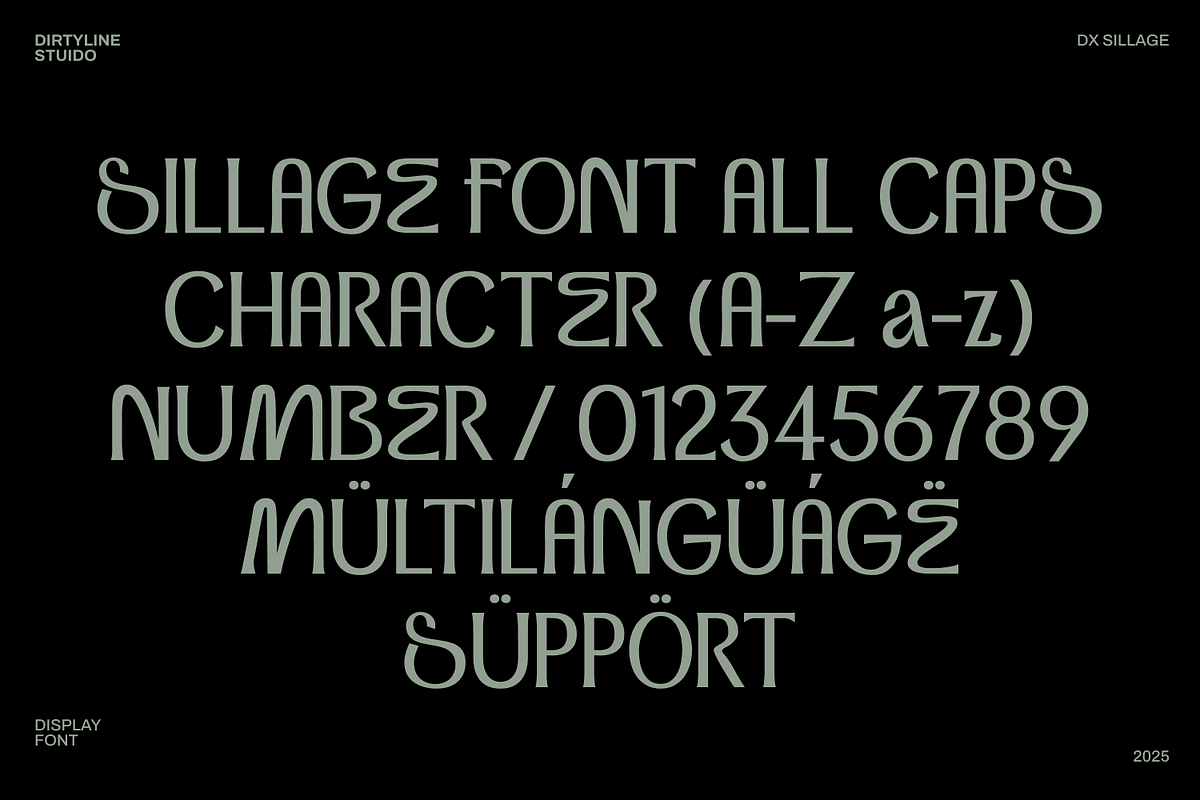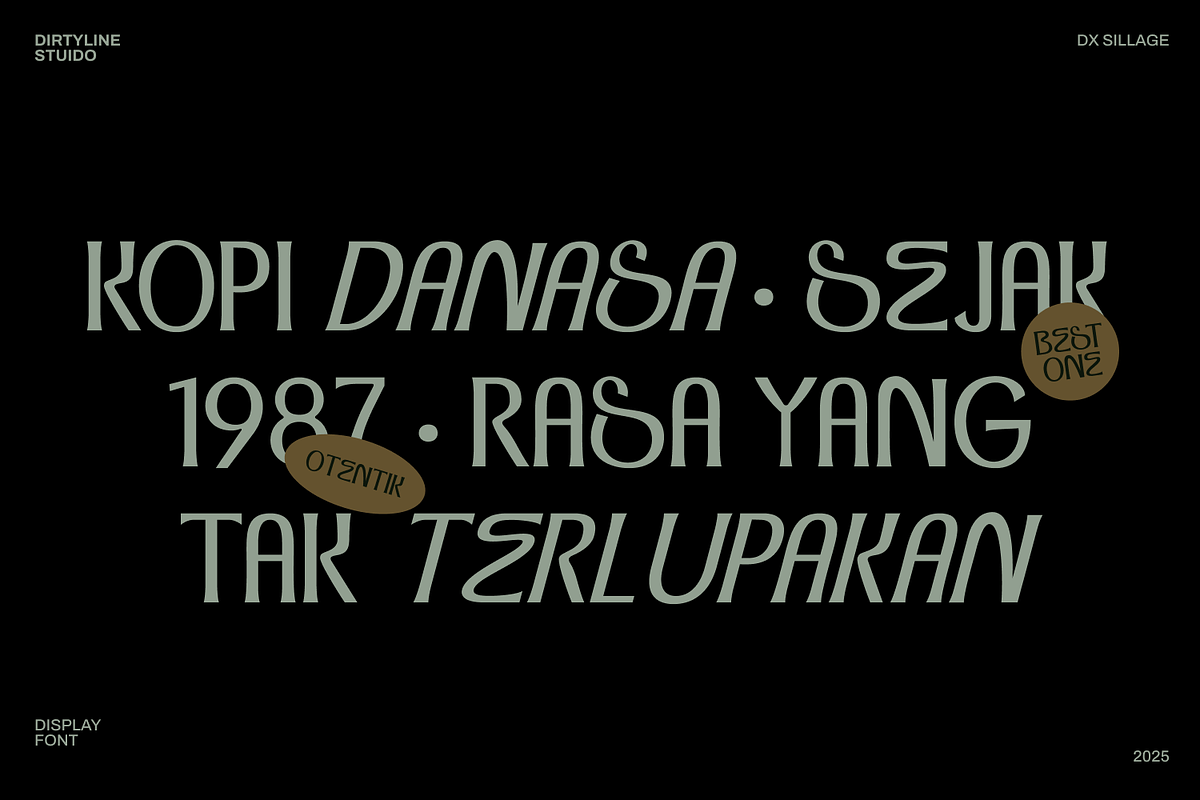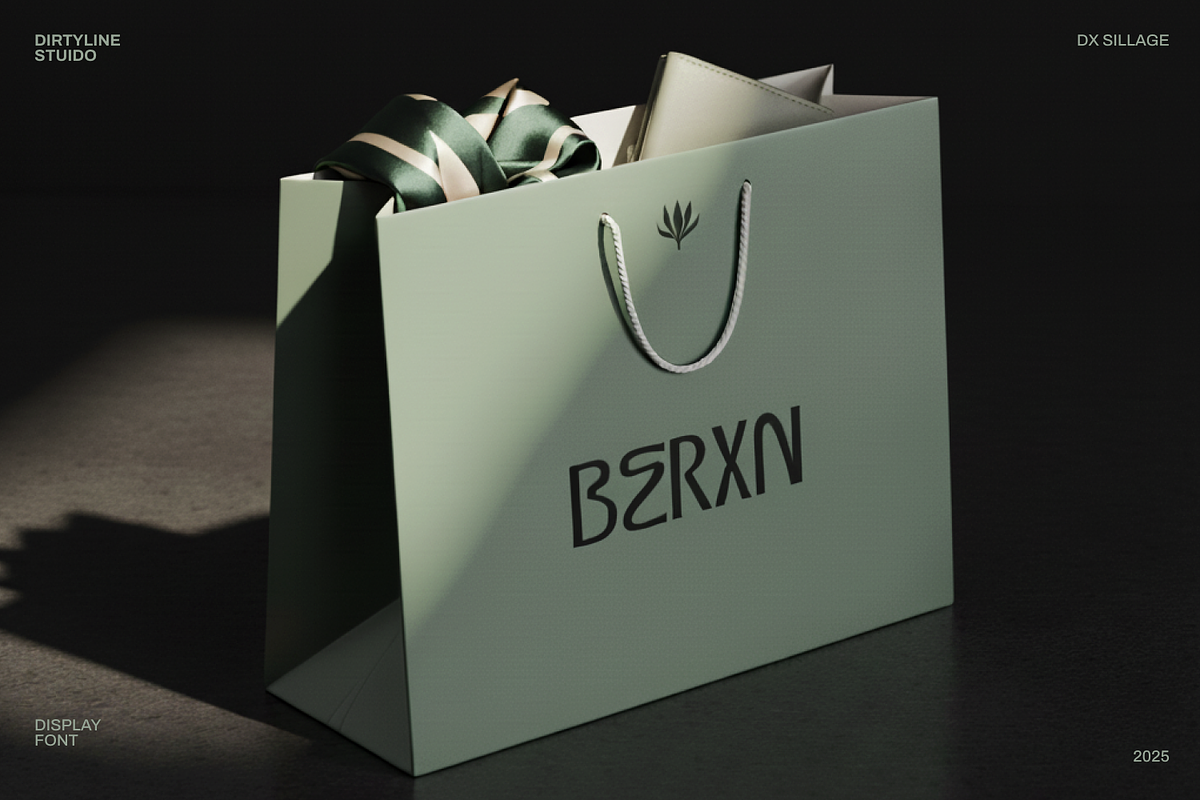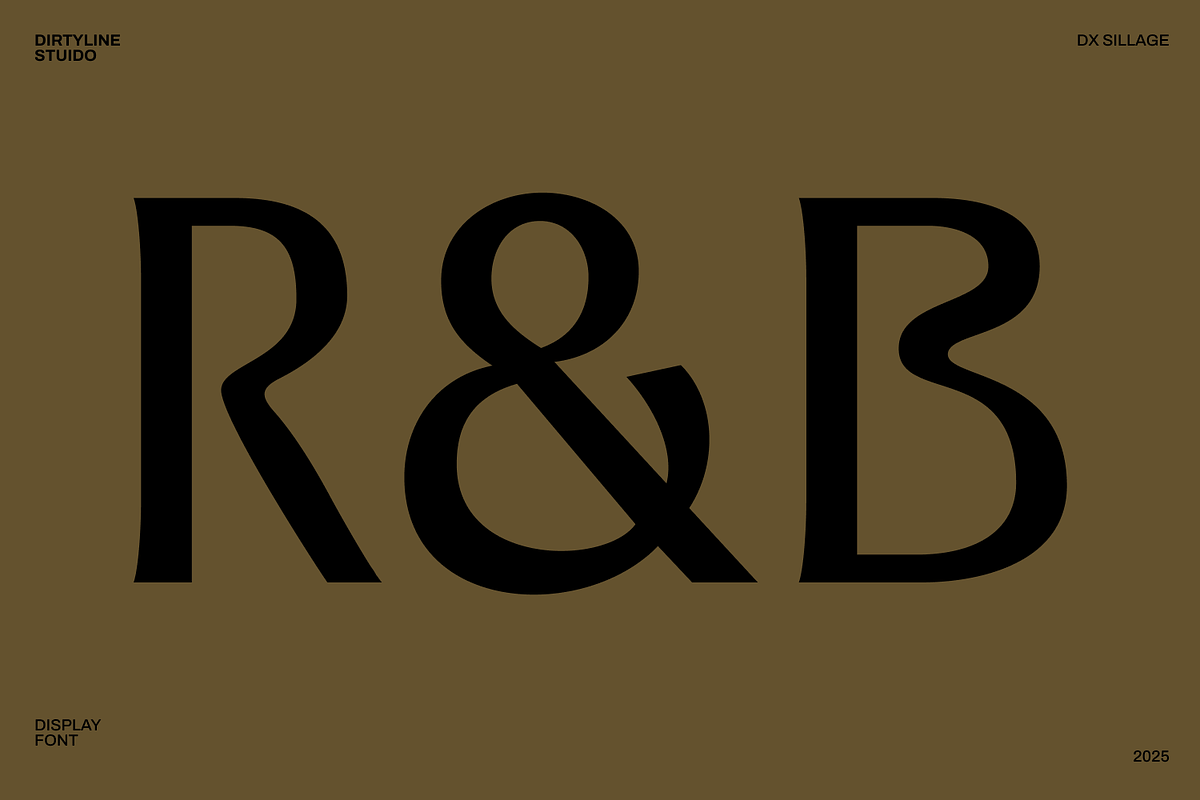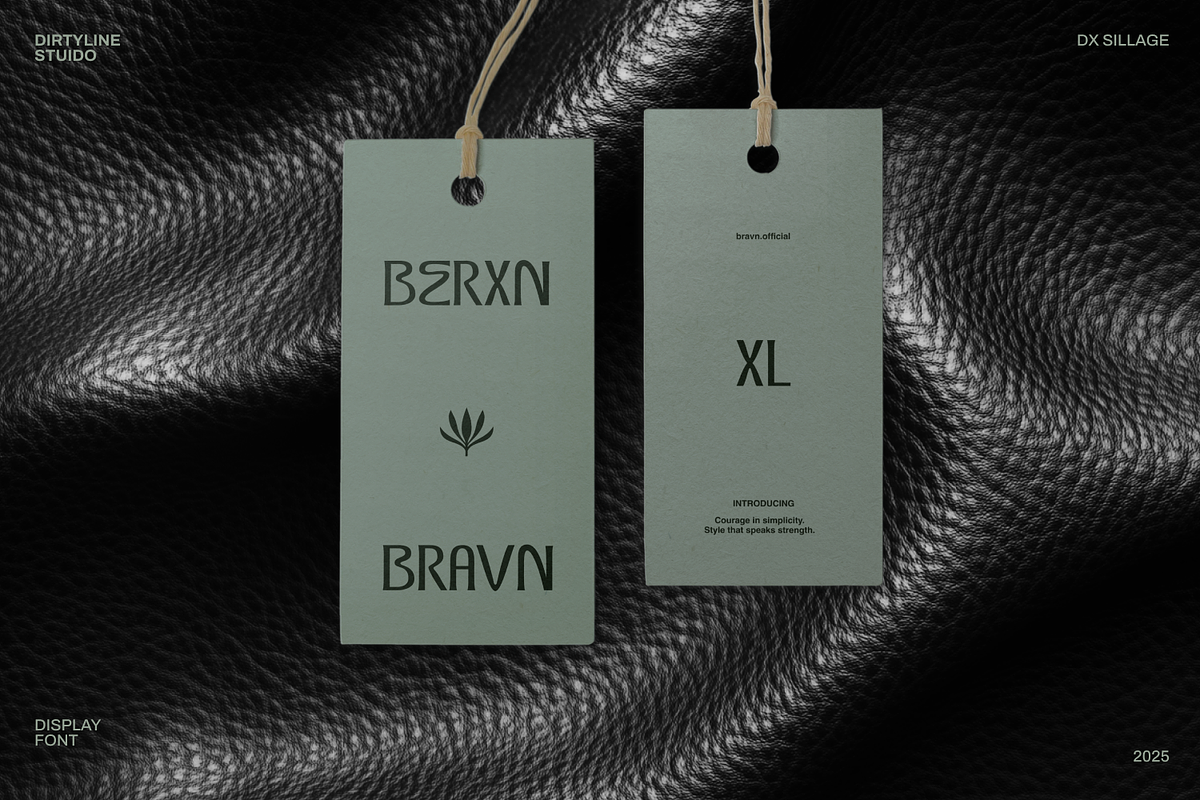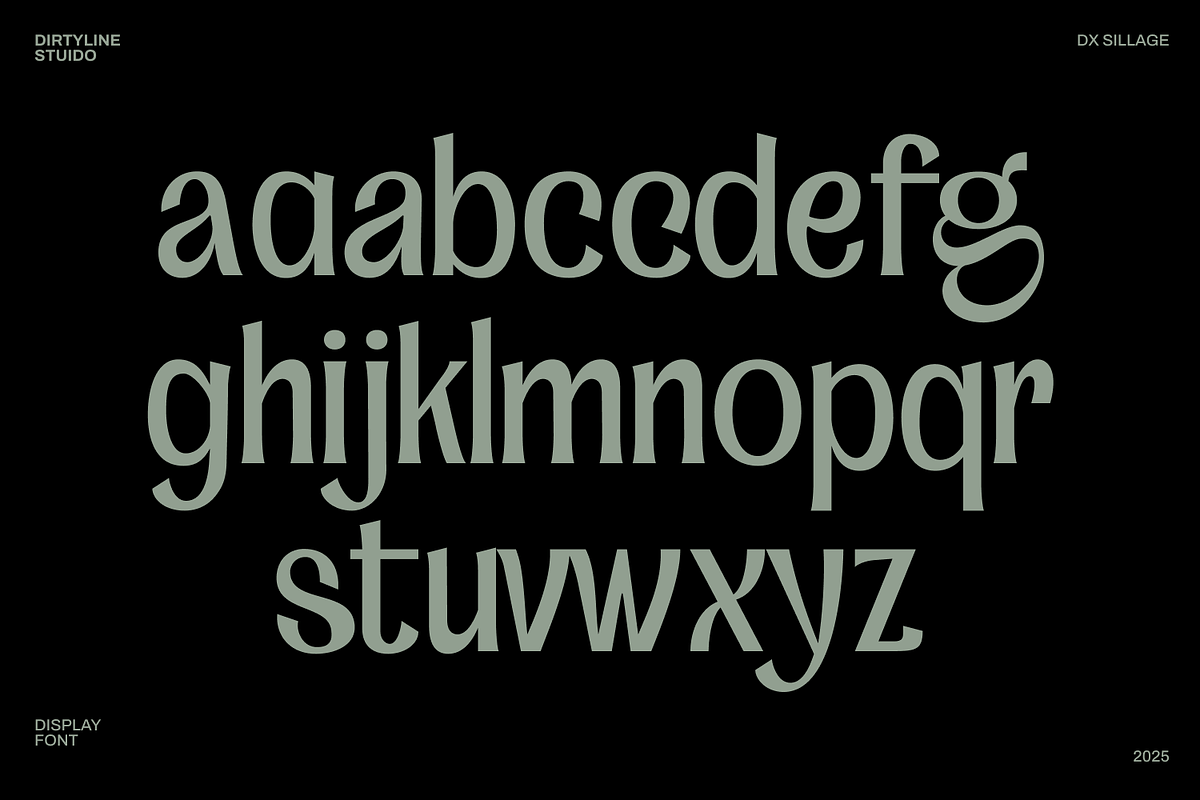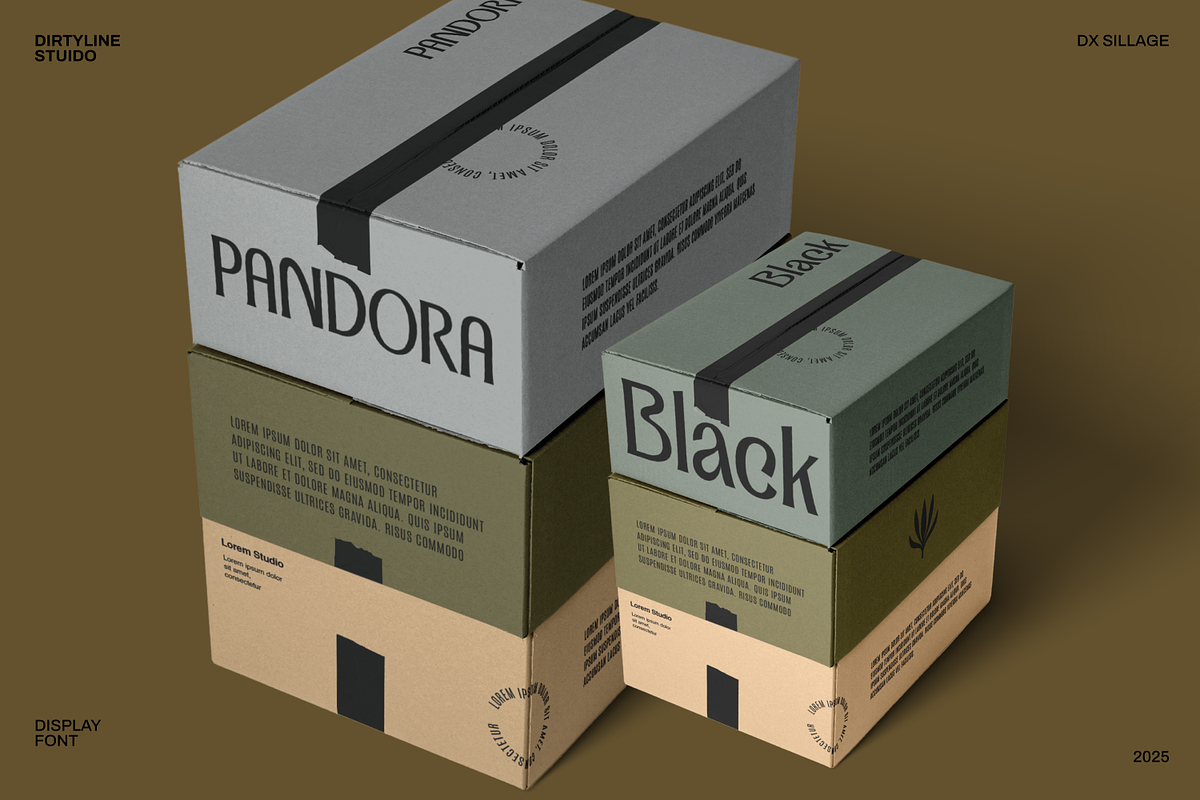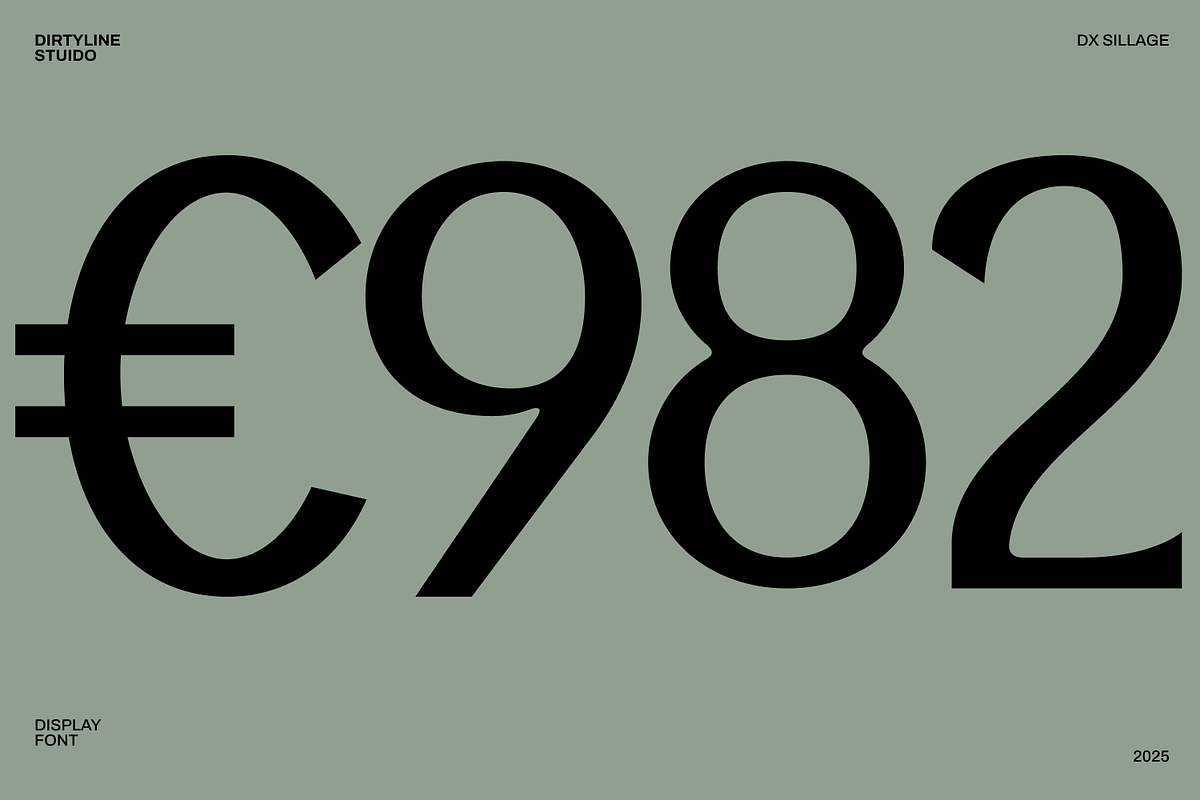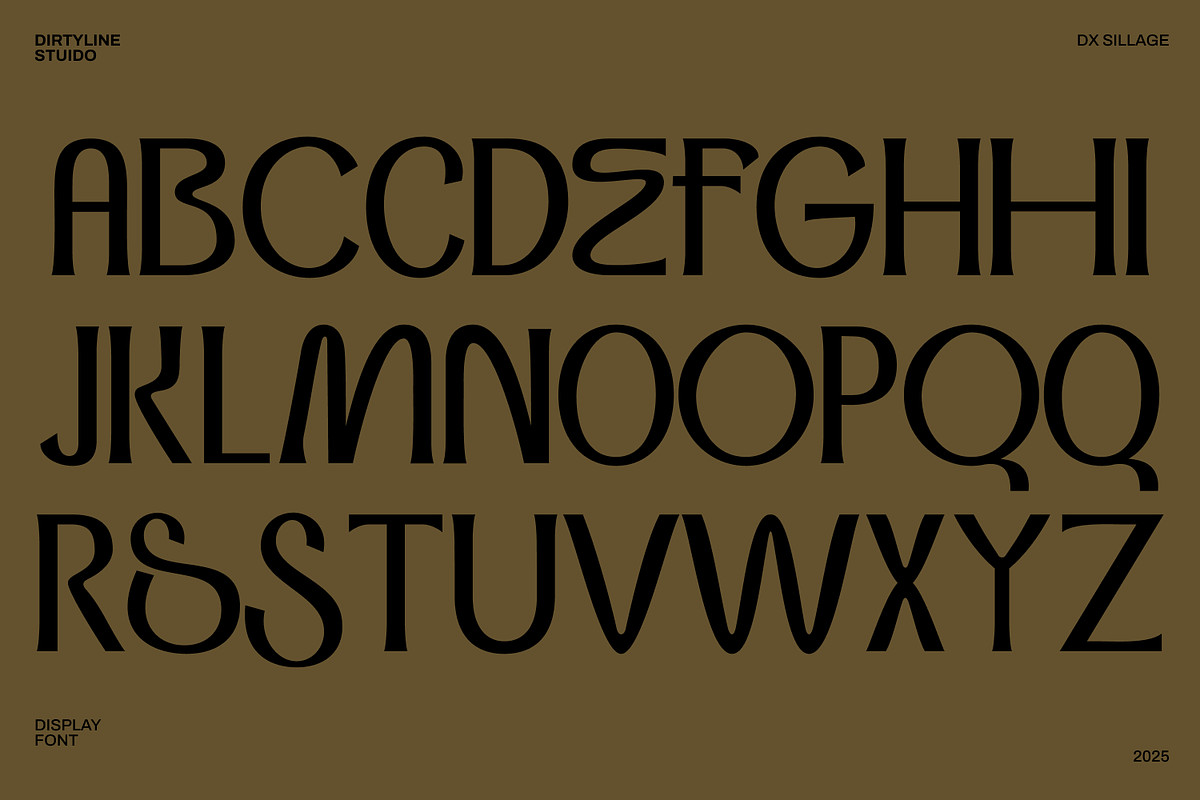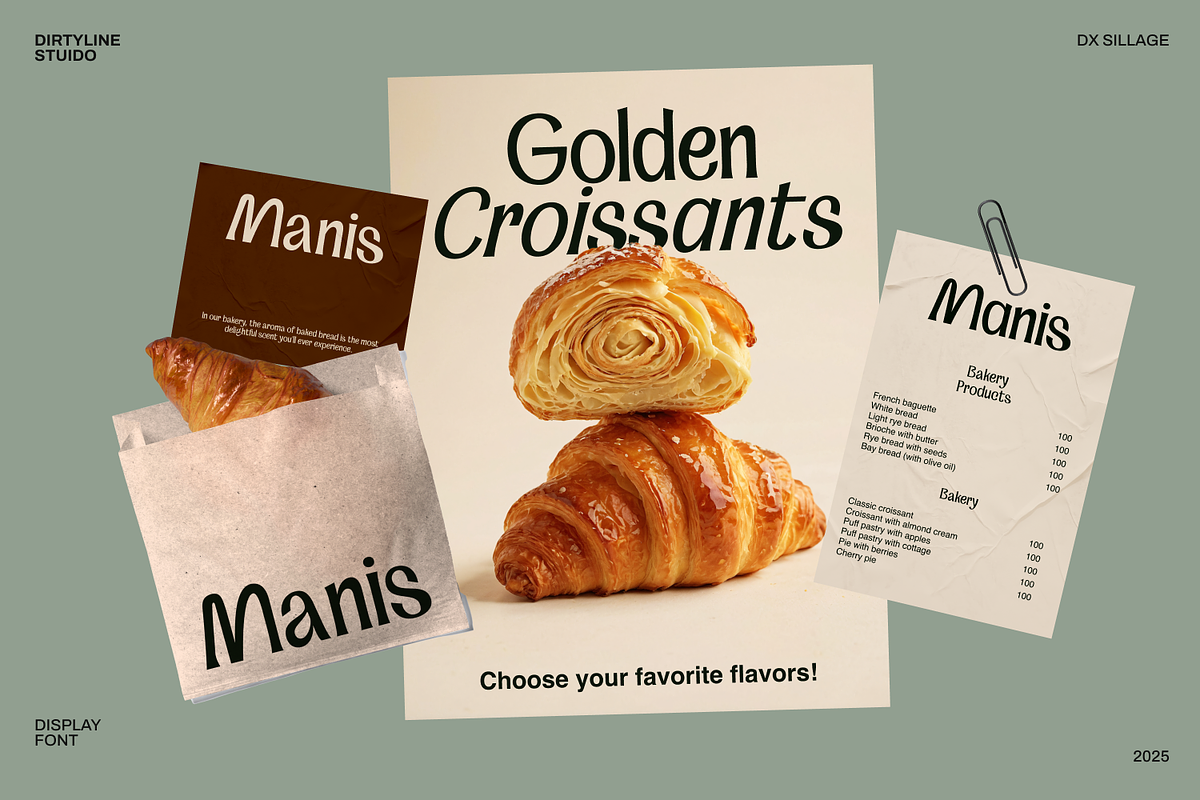
Dx Sillage Elegant Serif Font
DX Sillage is an elegant and expressive serif display font designed to bring sophistication, personality, and artistic flair to your typography. Crafted by Dirtyline Studio, this typeface blends classic serif structures with modern, fluid curves creating a graceful silhouette that feels both timeless and contemporary.
Inspired by high-end editorial design and luxury branding, DX Sillage features dramatic letterforms, refined strokes, and unique flourishes that stand out effortlessly. The family includes Regular and Italic, giving designers the flexibility to create striking contrasts and harmonious typographic compositions.
- 2 Styles: Regular & Italic
- Elegant Serif Display Typeface
- High Contrast Strokes & Expressive Curves
- Perfect for Editorials, Branding, Logos, Packaging, Invitations, Posters, and Luxury Design
- Distinctive Character Shapes with Unique Personality
- Supports Clean, Modern & Artistic Aesthetics